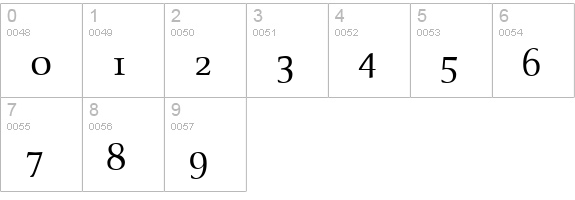
AIProsperaII Book Font Details
AIProsperaII Book is a comfortable, highly readable variant in the AIProsperaII typeface family \xE2\x80\x94 well suited to long-form body text, articles, and editorial content.
The AIProsperaII Book font is a sophisticated and elegant typeface that exudes professionalism and refinement. With its clean lines and balanced proportions, this font is perfect for conveying a sense of sophistication and modernity in your design projects. The AIProsperaII Book font is versatile and can be used for a variety of applications, from branding and marketing materials to editorial design and website content. Best of all, the AIProsperaII Book font is available for free download at FontsMarket.com. This means that you can easily access and use this high-quality font in your projects without any cost. Don't miss out on the opportunity to enhance your designs with the AIProsperaII Book font - download it today and elevate your typography game to the next level!